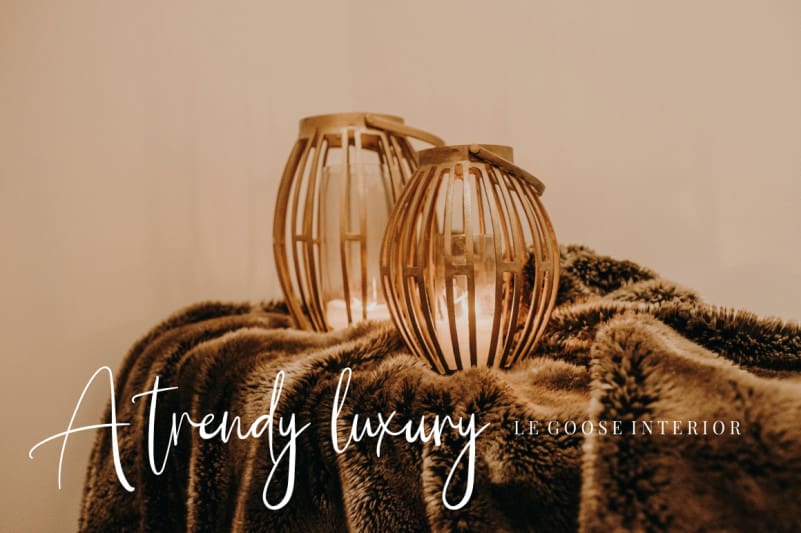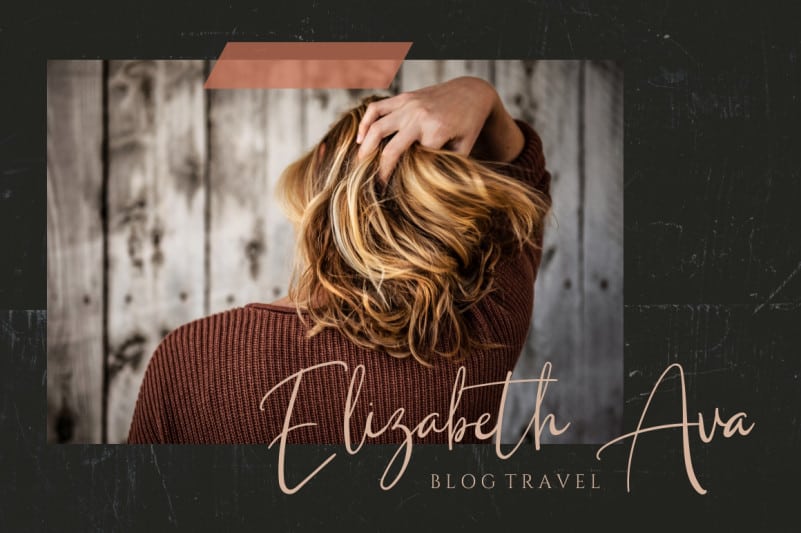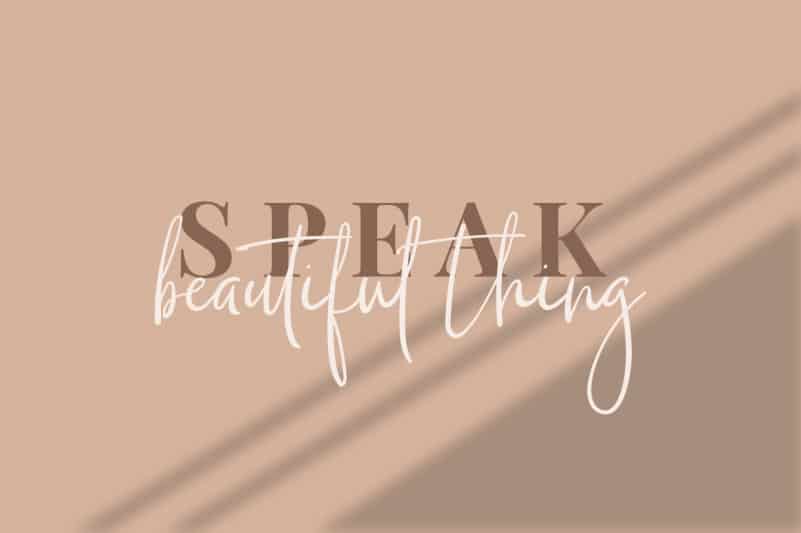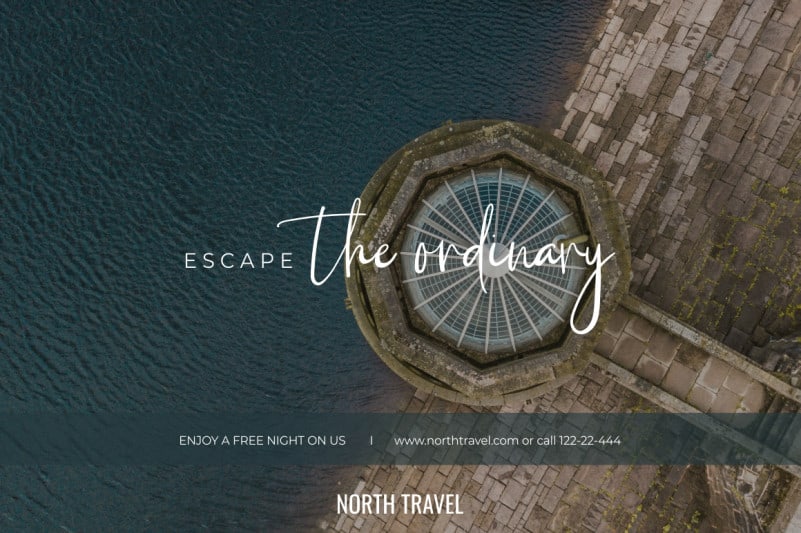
Brilliant Classy Script Font
Introducing Brilliant Classy Script Font. A modern, fashionable and feminine font. Brilliant Classy includes full set of gorgeous uppercase and lowercase letters, numerals, a large range of punctuation and 91 ligatures, giving realistic hand-lettered style. It’s the perfect choice for stylish branding & logo projects, product packaging, handwritten quotes, editorial design invites, greetings and so much more!